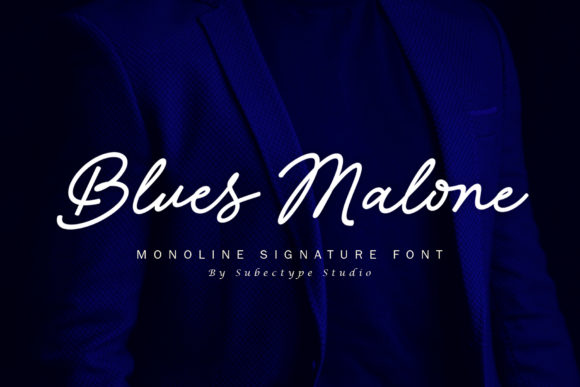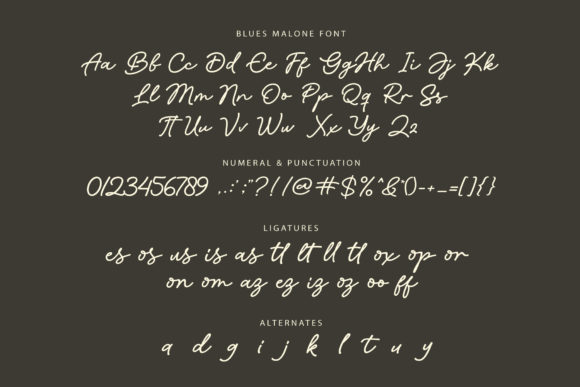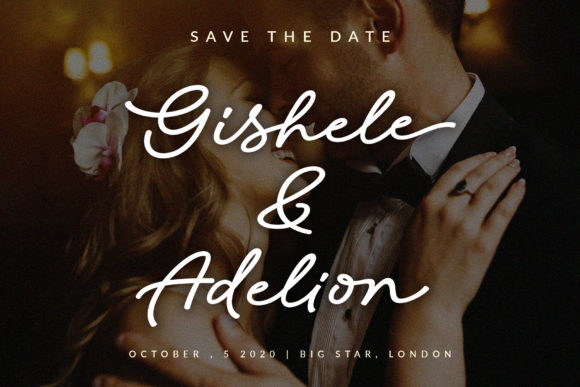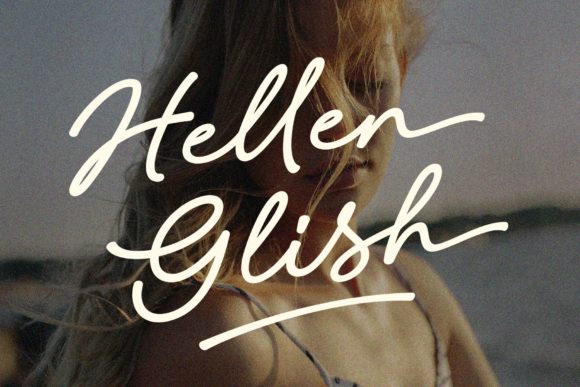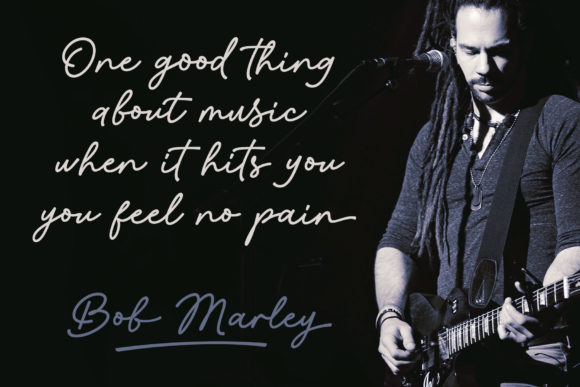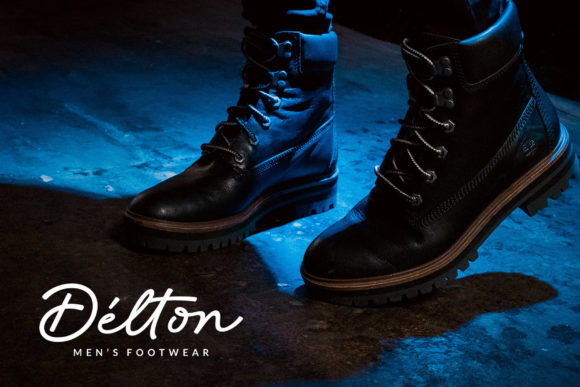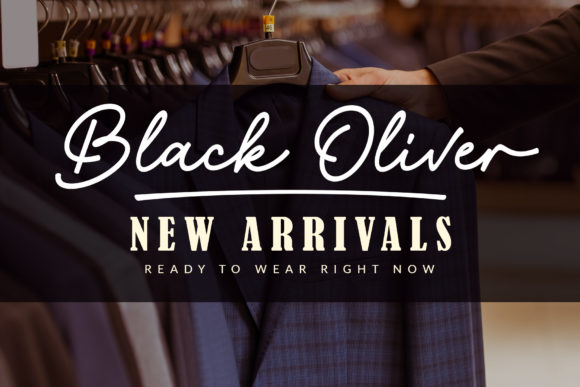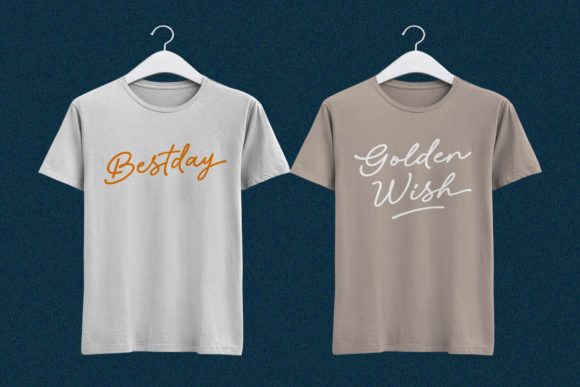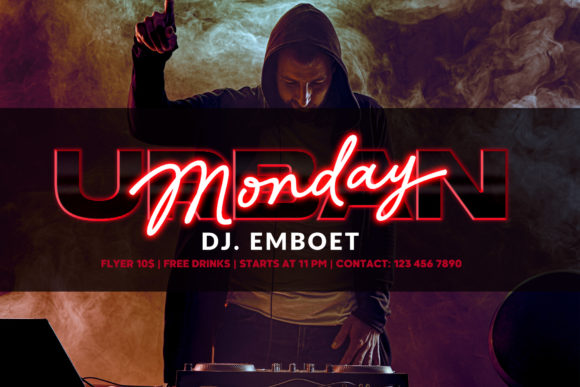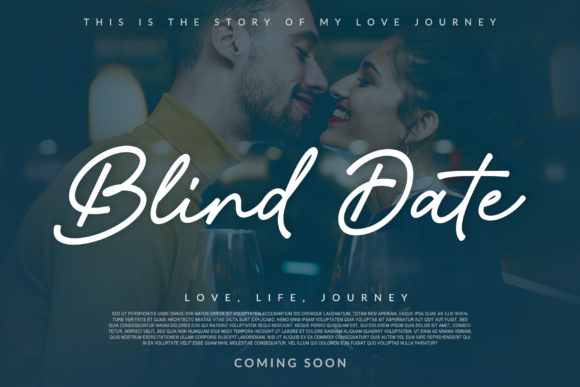
Blues Malone Font
About Blues Malone Font
Blues Malone is a modern handwritten font carefully created with a touch of elegance. This is a beautiful combination of timeless elegance and authentic calligraphy that will elevate your crafting projects to the highest level.